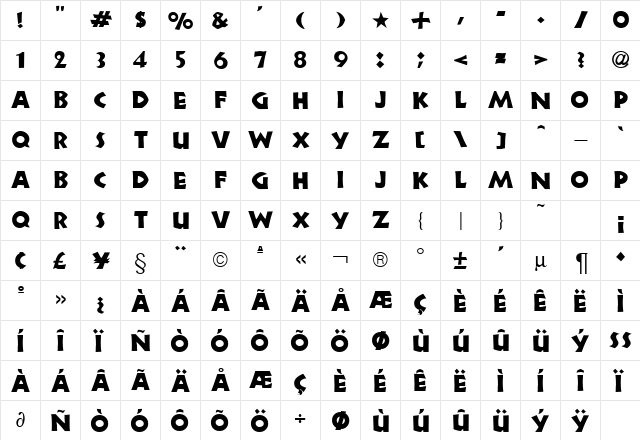
Neuland DB Regular
Design Context for Neuland DB Typeface
Neuland DB is a composed and adaptable typeface that performs quietly and consistently across a wide range of design contexts.